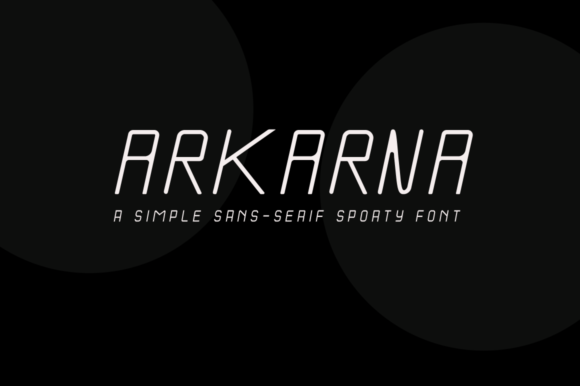
Arkarna Font: A Modern Sans Serif Marvel
Arkarna is a modern and thin lettered sans serif font, designed to elevate your creative projects. Its clean lines, elegant curves, and versatile style make it an excellent choice for a wide range of applications. From branding and advertising to crafting and hobby projects, Arkarna can easily be matched to an incredibly large set of projects, making them stand out with ease.
Here’s what I love about Arkarna Font:
• ✨ Modern and sleek design: Arkarna’s thin lettering and sans serif style give it a contemporary look that’s hard to find in other fonts.
• ✅ Versatility: This font can be used for a wide range of projects, from digital designs to print materials.
• 💡 Easy to read: Despite its thin lines, Arkarna remains clear and legible, even at smaller font sizes.
And, like any font, it’s not without its quirks:
• 🤔 Limited contrast: Arkarna’s thin lines can make it challenging to create visual contrast, especially when used on busy backgrounds.
• ⚠️ Overuse of stylistic alternates: While Arkarna offers some excellent stylistic alternates, overusing them can make the text look cluttered.
The Designer Behind Arkarna: A Backstory
Arkarna Font was designed with the intention of creating a modern, versatile sans serif font. While the designer’s story might be shrouded in mystery, their passion for typography and design is evident in every detail of Arkarna.
Q: Is Arkarna Font suitable for body text?
A: While Arkarna Font is legible, its thin lines might make it less suitable for long-form body text. Consider using it for headings or titles instead.